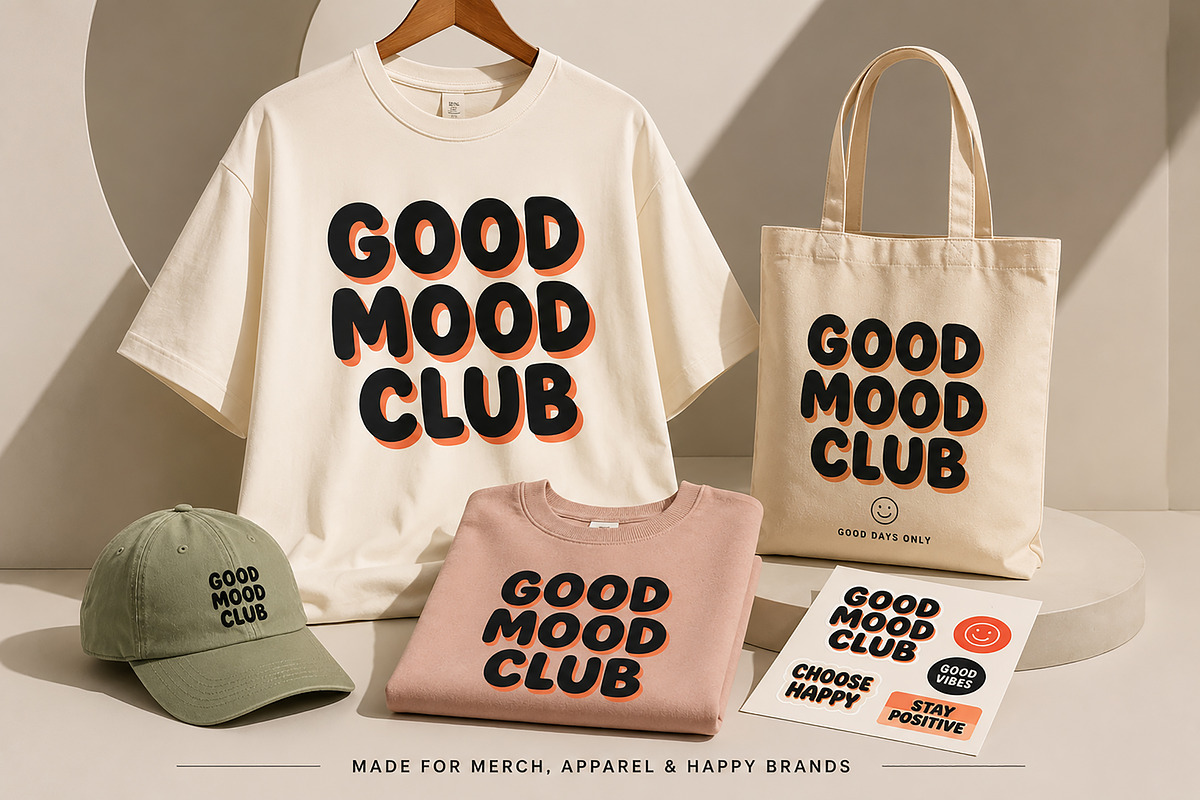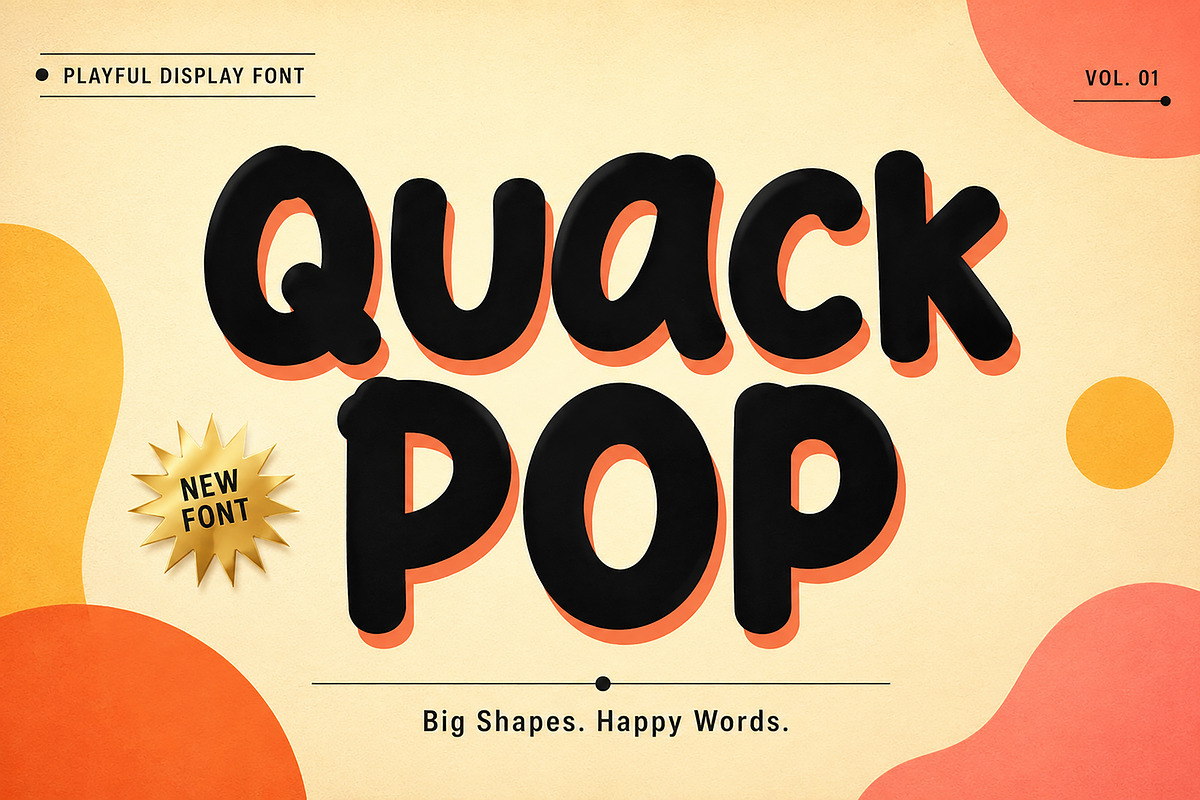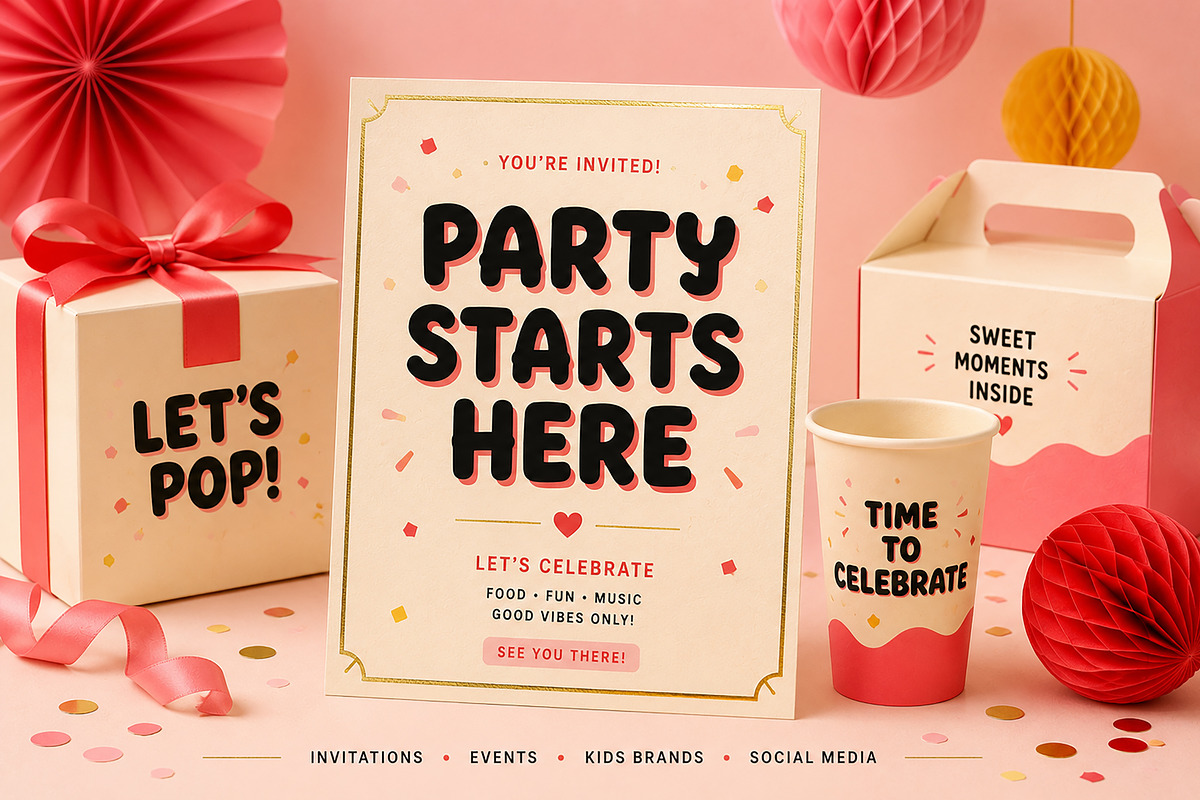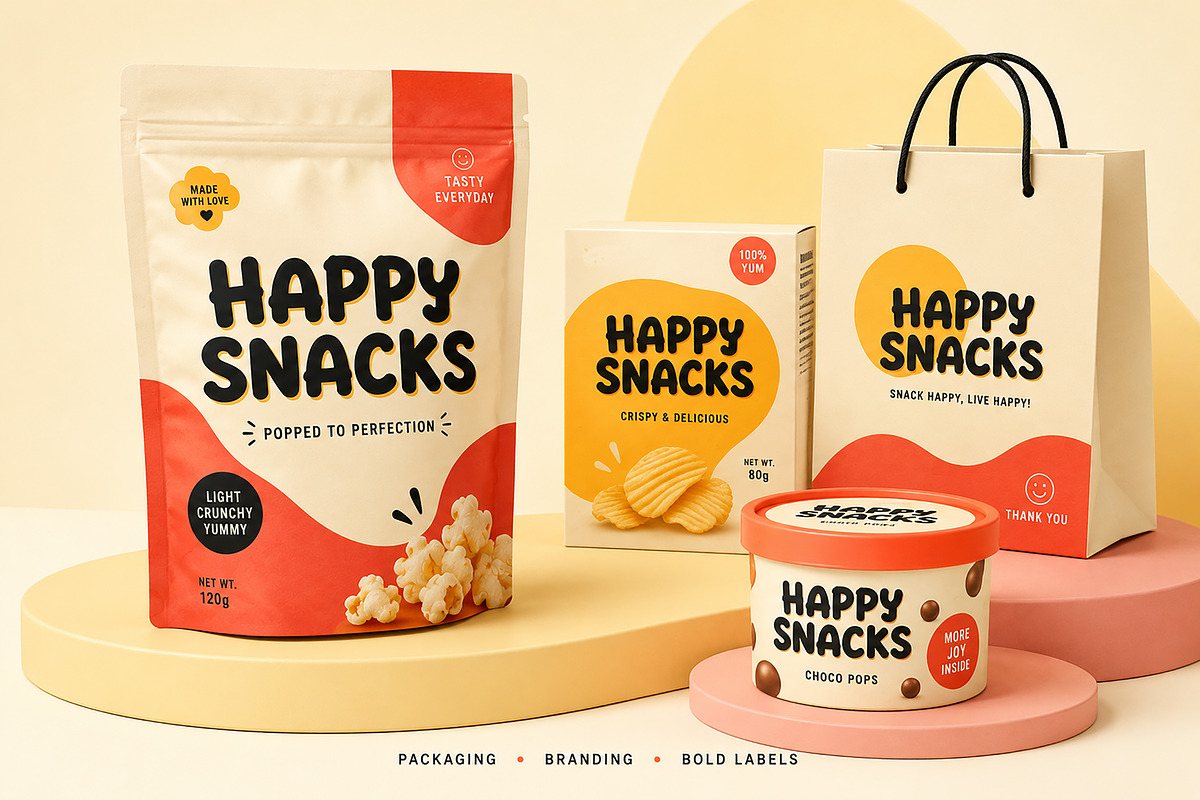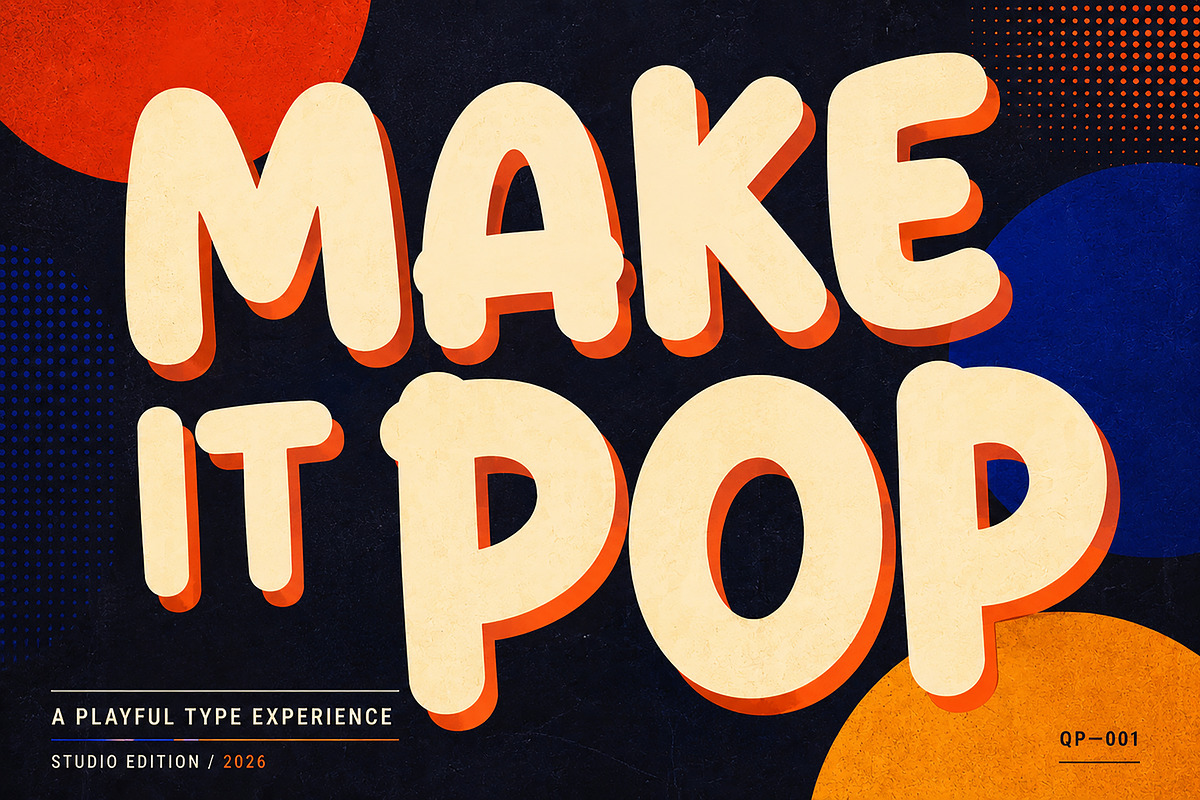
Quack Pop
Quack Pop – A Bold & Playful Display Font
Bring joy, personality, and eye-catching style to your designs with Quack Pop, a bold display font featuring soft rounded shapes and a friendly handcrafted feel. Perfect for designers who want to create fun, modern, and memorable visuals, this font delivers strong readability while adding a cheerful character to every project.
Whether you're designing product packaging, children's brands, snack labels, birthday invitations, social media graphics, posters, merchandise, or branding projects, Quack Pop helps your headlines stand out with confidence and charm.
Its chunky, playful letterforms make it an excellent choice for creative projects that need a bold visual impact while maintaining a clean and professional appearance.
Branding & Logo Design
Snack & Candy Packaging
Kids Brands
Birthday Invitations
Party Decorations
Posters & Headlines
Merchandise Design
T-Shirts
Tote Bags
Stickers
YouTube Thumbnails
Greeting Cards
Magazine Covers
Creative Advertising
Event Branding
School Projects
Craft Projects
Printable Designs
Uppercase Letters
Lowercase Letters
Standard Punctuation
Smooth Rounded Design
Bold Display Style
High Readability
Why You'll Love Quack Pop
Bold and playful personality
Perfect for eye-catching headlines
Clean, rounded letterforms
Professional quality
Great for branding and packaging
Modern handcrafted appearance